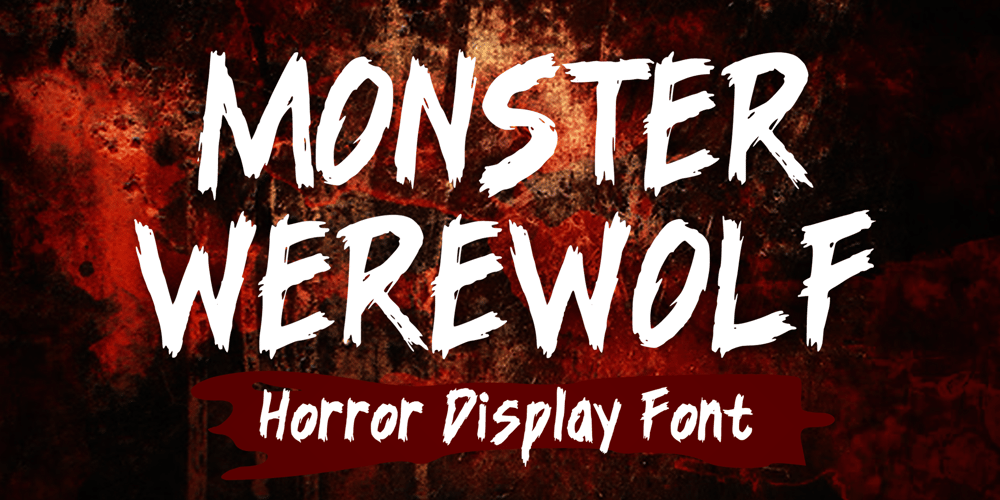
Monster Werewolf
Monster Werewolf font
Monster Werewolf Font Family was designed by Gabriel Valentinus and published by Mvmet. Monster Werewolf contains 1 styles and family package options. Monster Werewolf is a fantastic and scary yet playful horror font inspired by vintage horror movies, comics, and Metal music. It will be perfect for your horror and Halloween-themed needs! You can use it for anything ranging from merchandise like t-shirts and clothing, for your scary book designs, Halloween party needs, greeting cards, stickers, posters, banners, or anything that needs a horror touch.